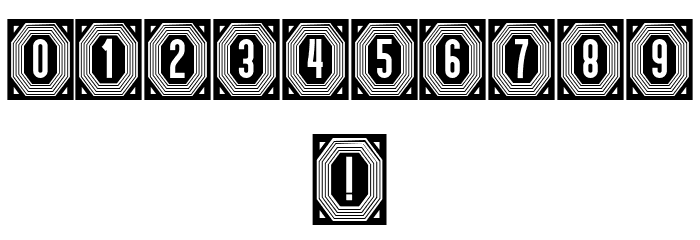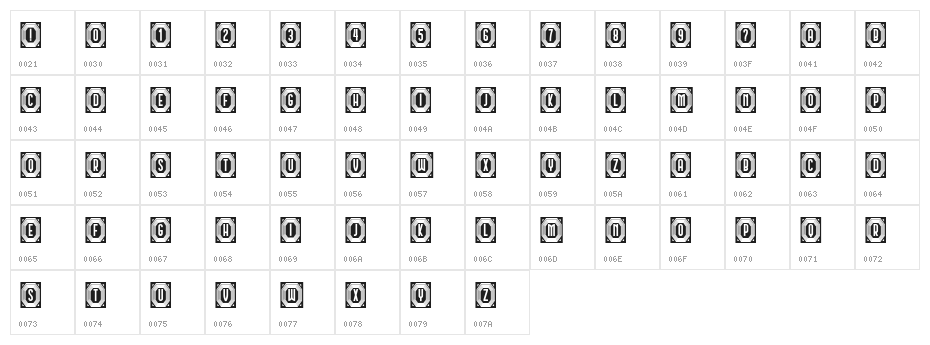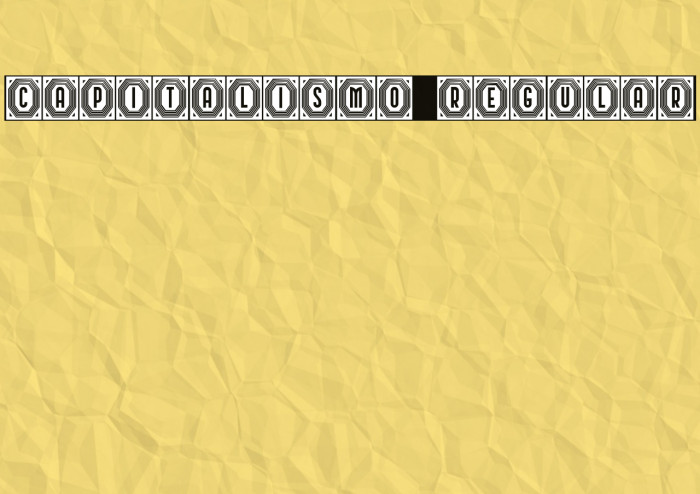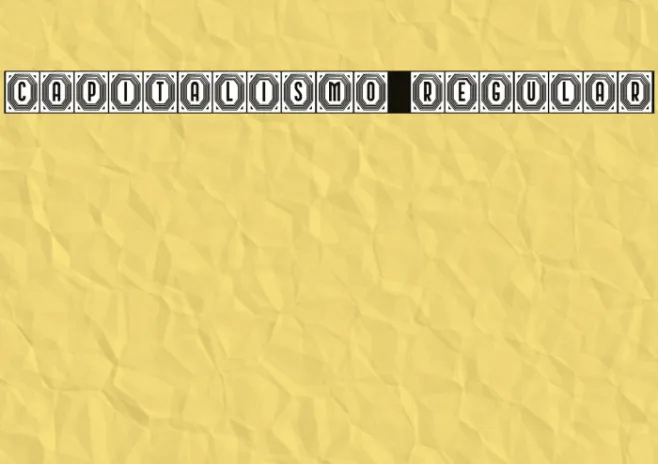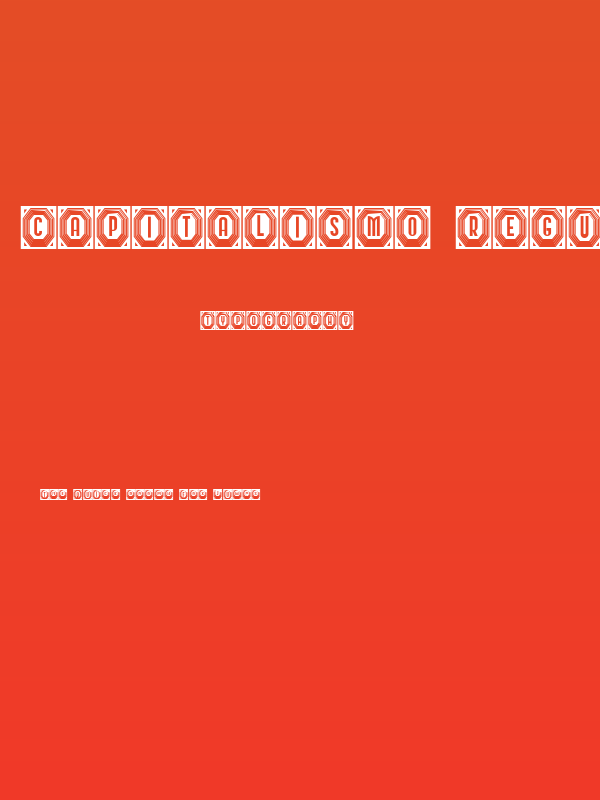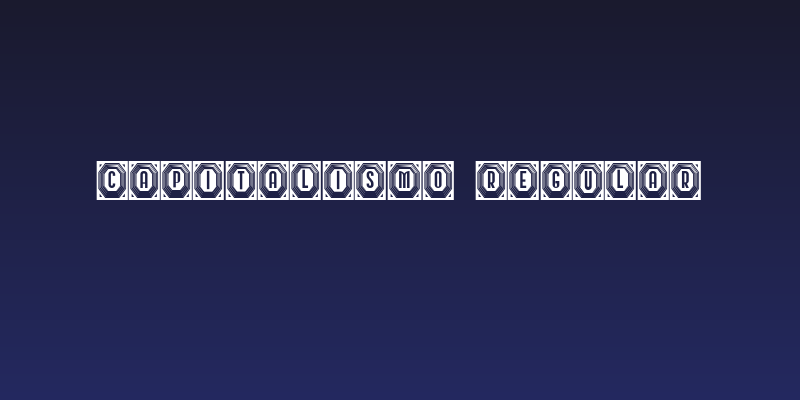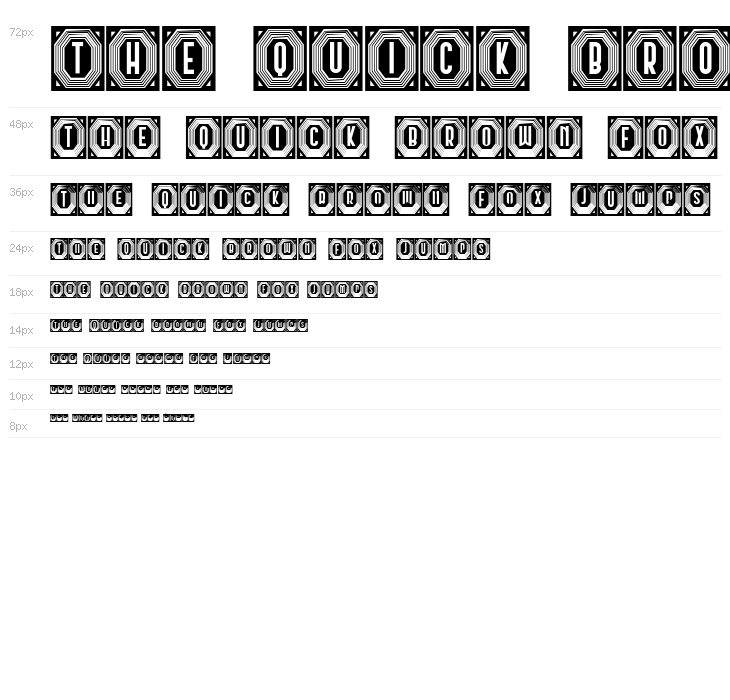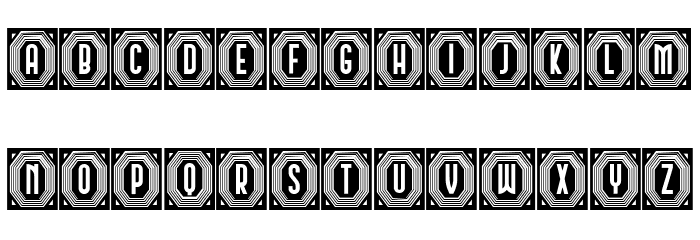
Capitalismo Regular Font
Capitalismo Regular Description
This font features a bold, geometric design with each character enclosed in a decorative, octagonal border. The letters and numbers are centered within these borders, creating a striking visual impact. The style is reminiscent of Art Deco, with its clean lines and symmetrical shapes. The characters are uppercase and numerals, each designed with a consistent thickness that adds to the boldness of the font. The intricate border pattern enhances the overall aesthetic, making it suitable for eye-catching designs.
| Use Case | Logos, Posters, Headlines |
| Proposed Projects | Ideal for vintage-themed posters, logos, and branding materials that require a strong visual presence. |